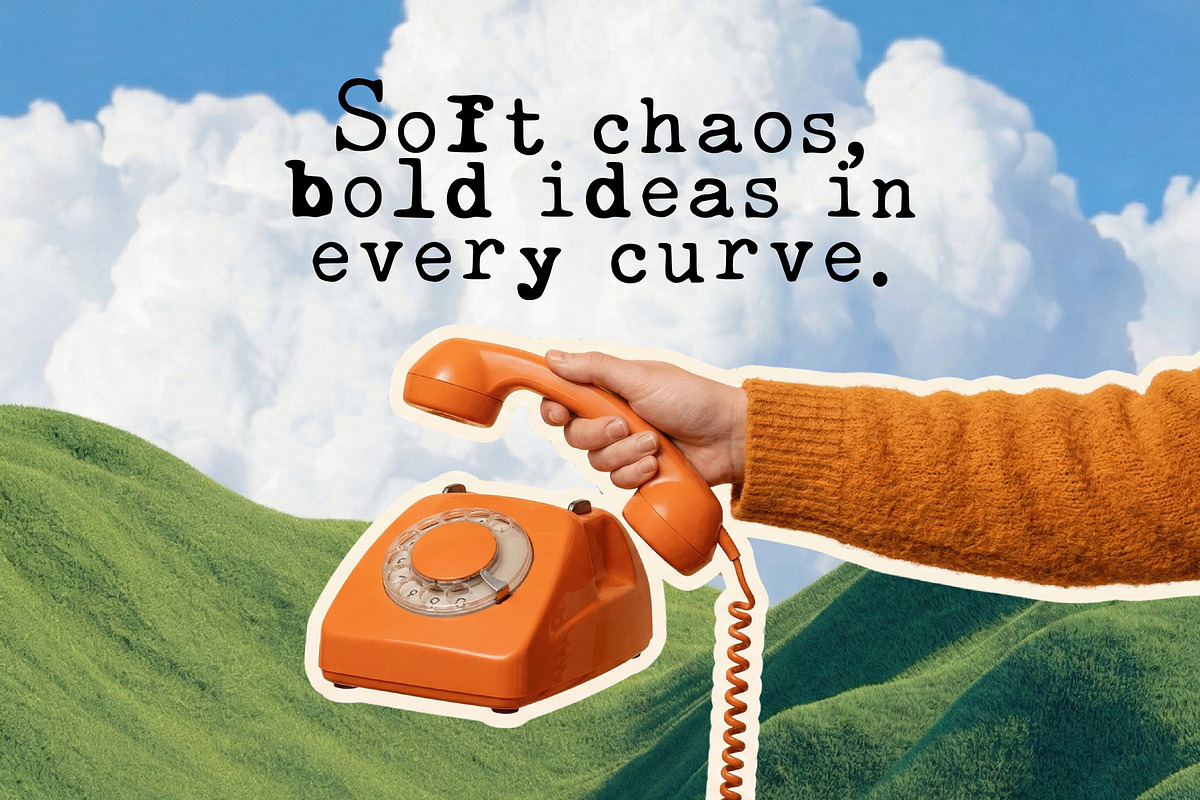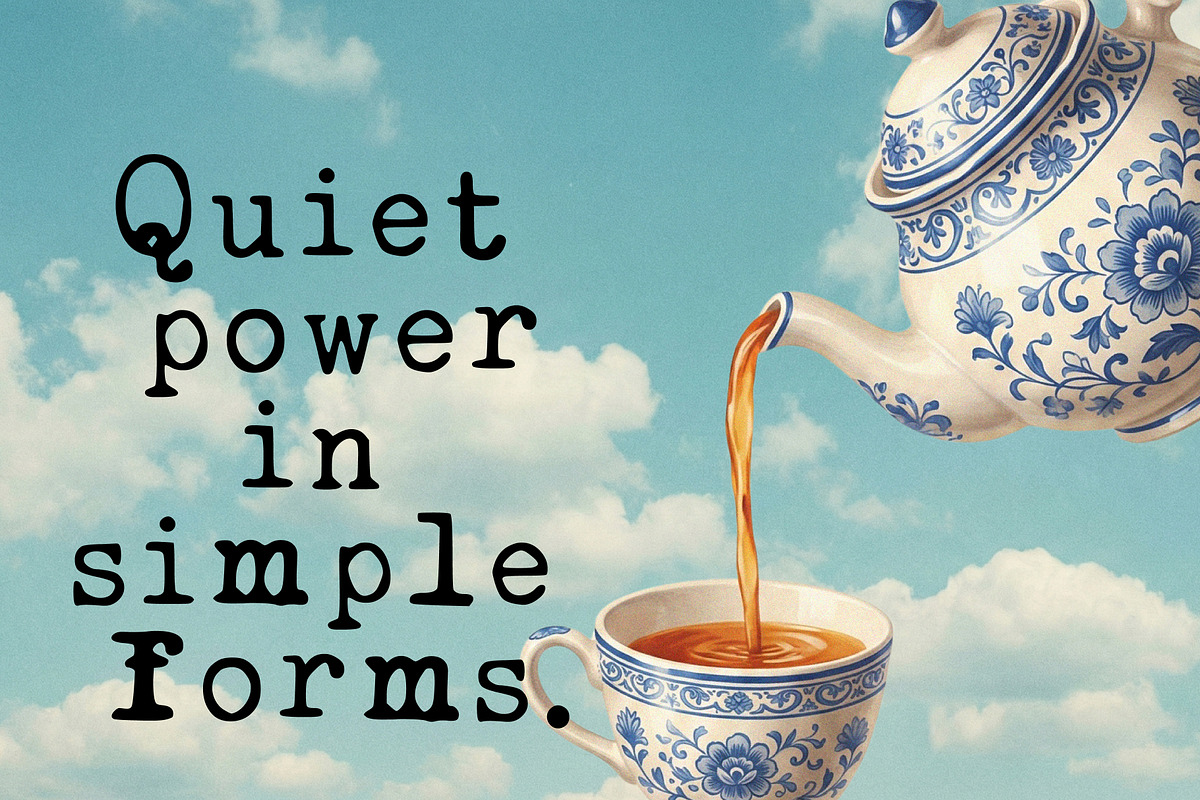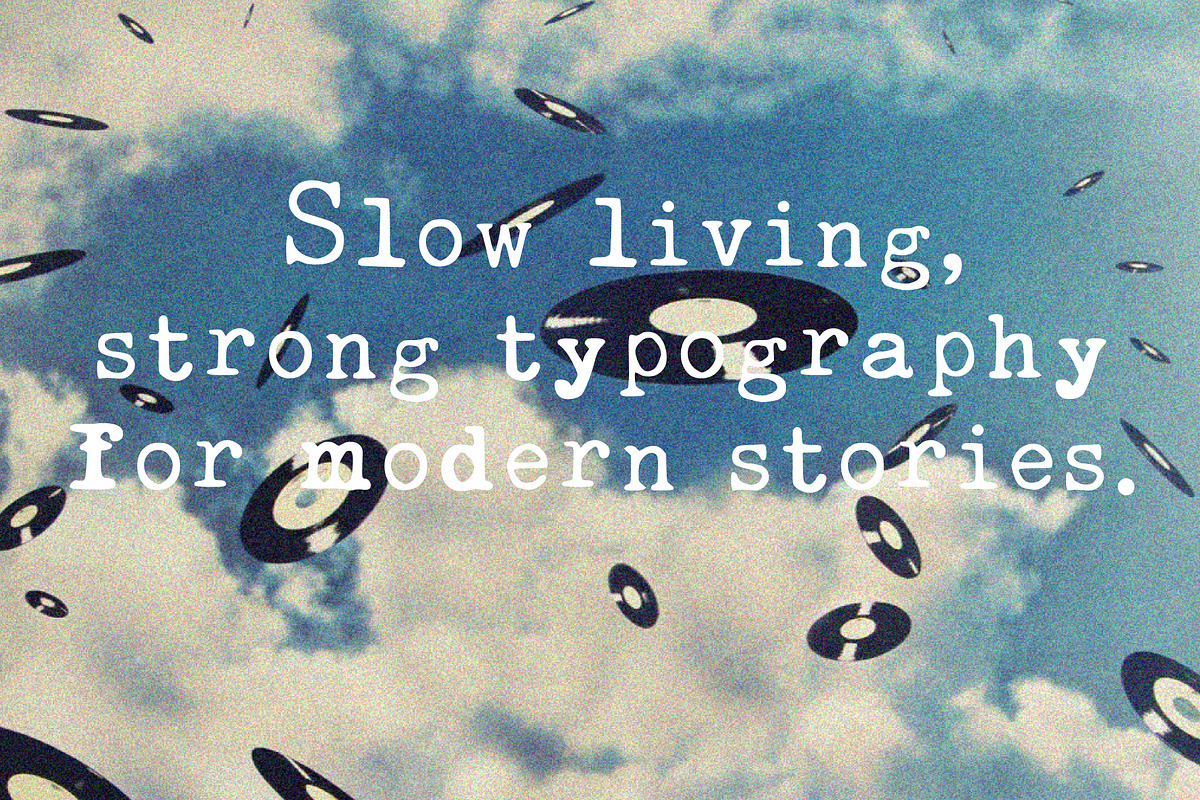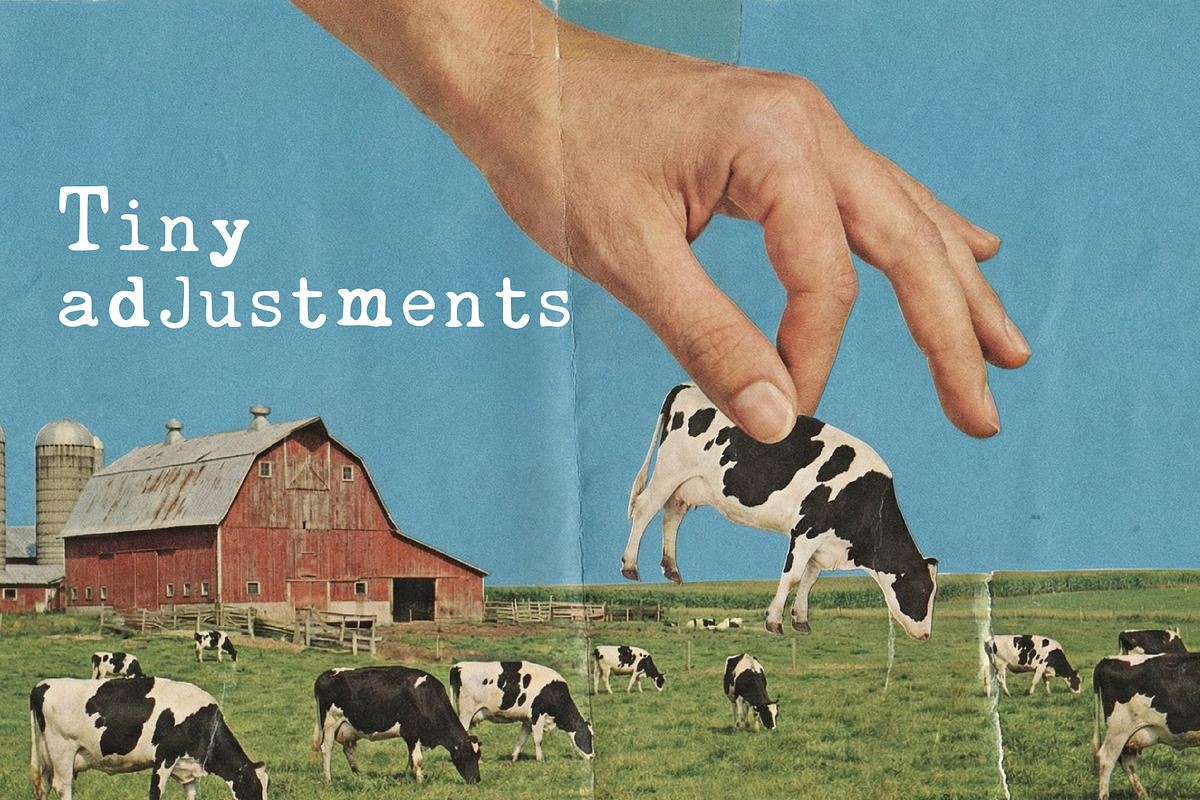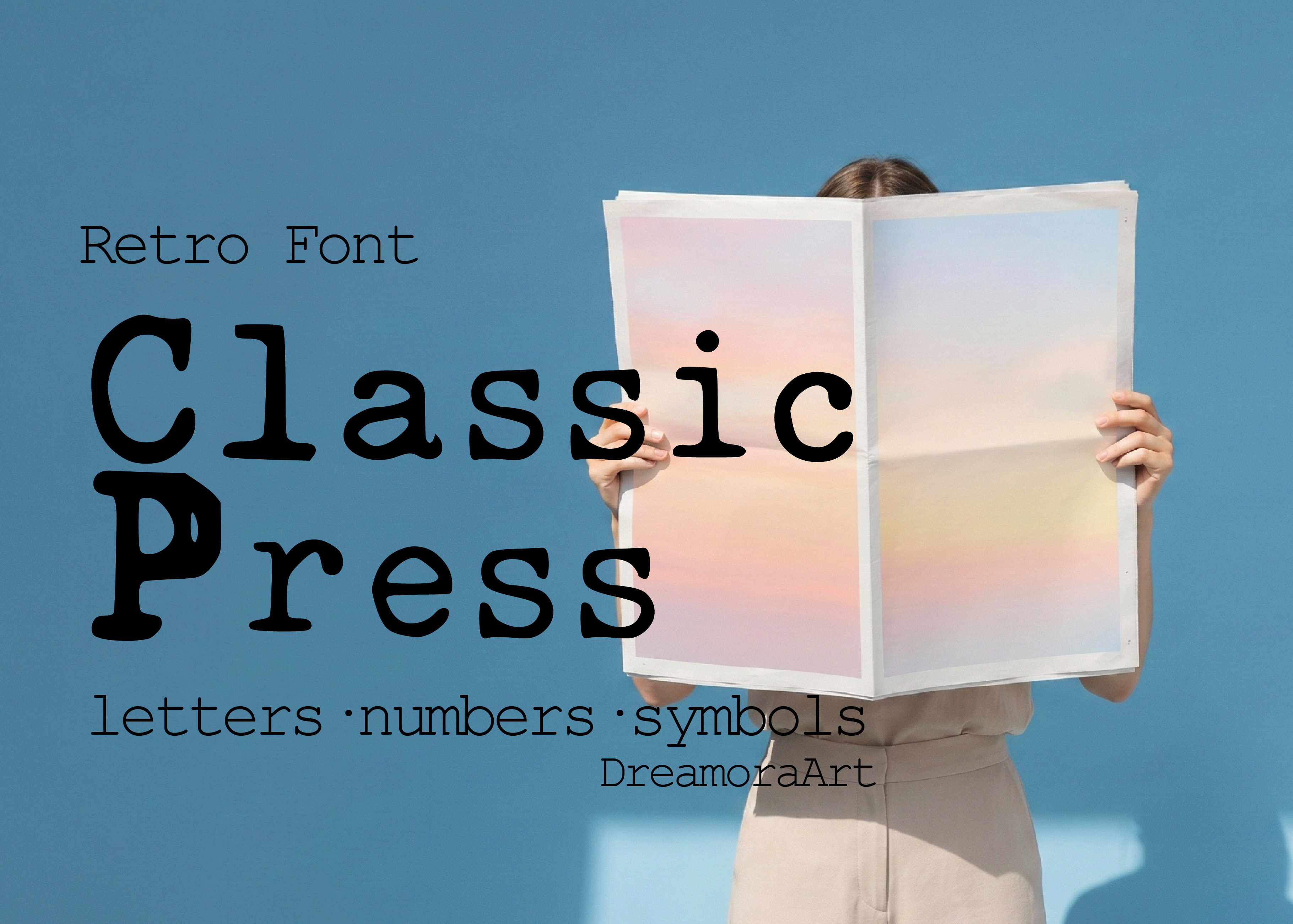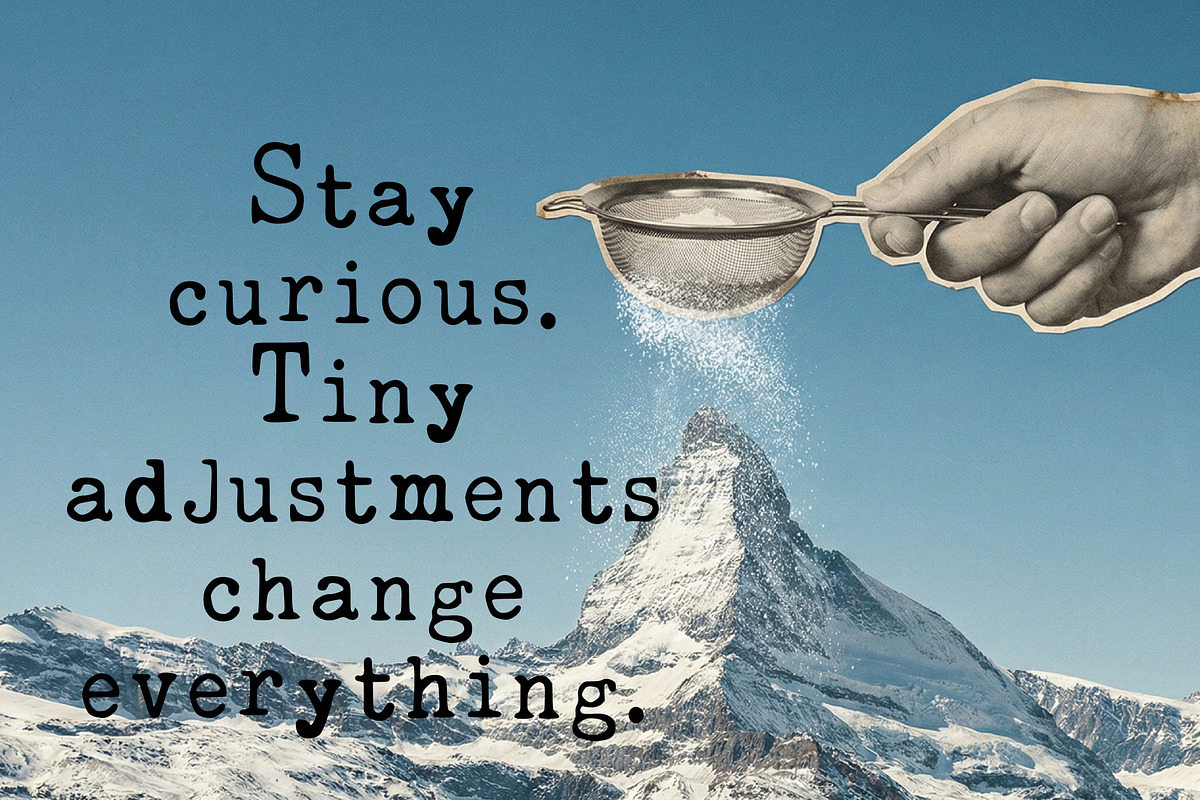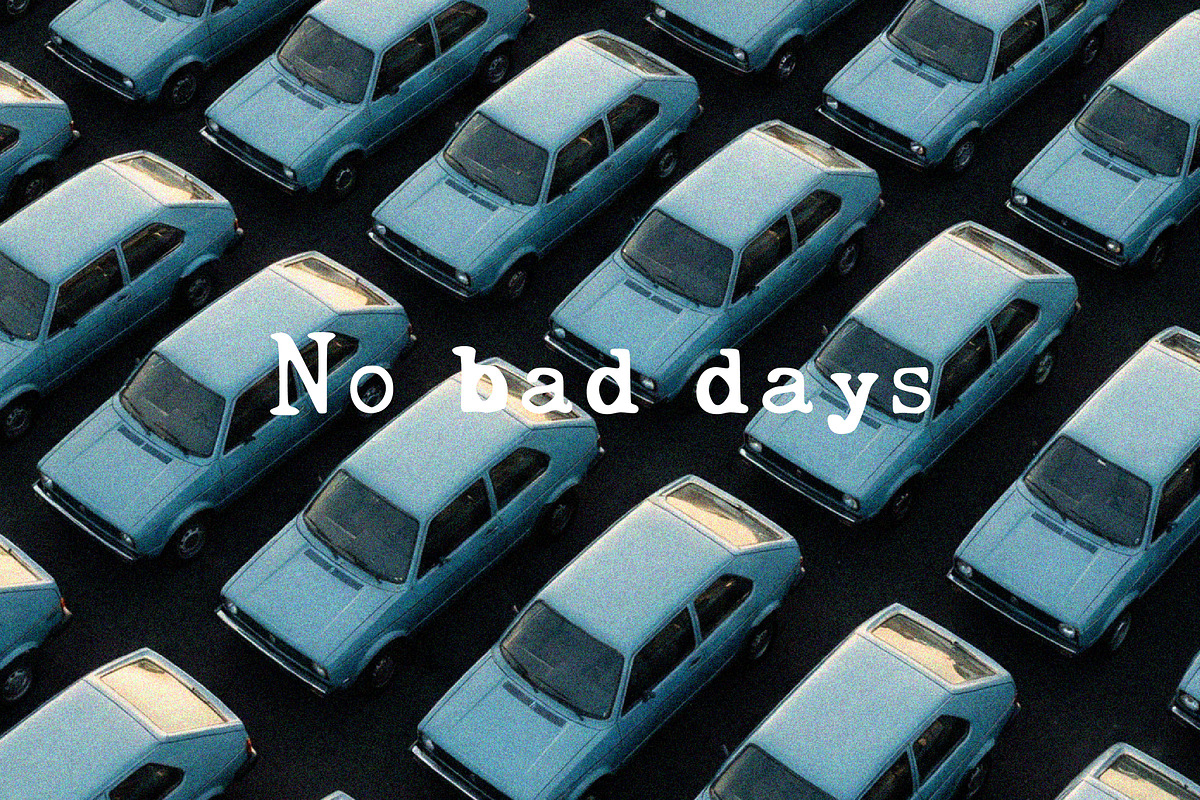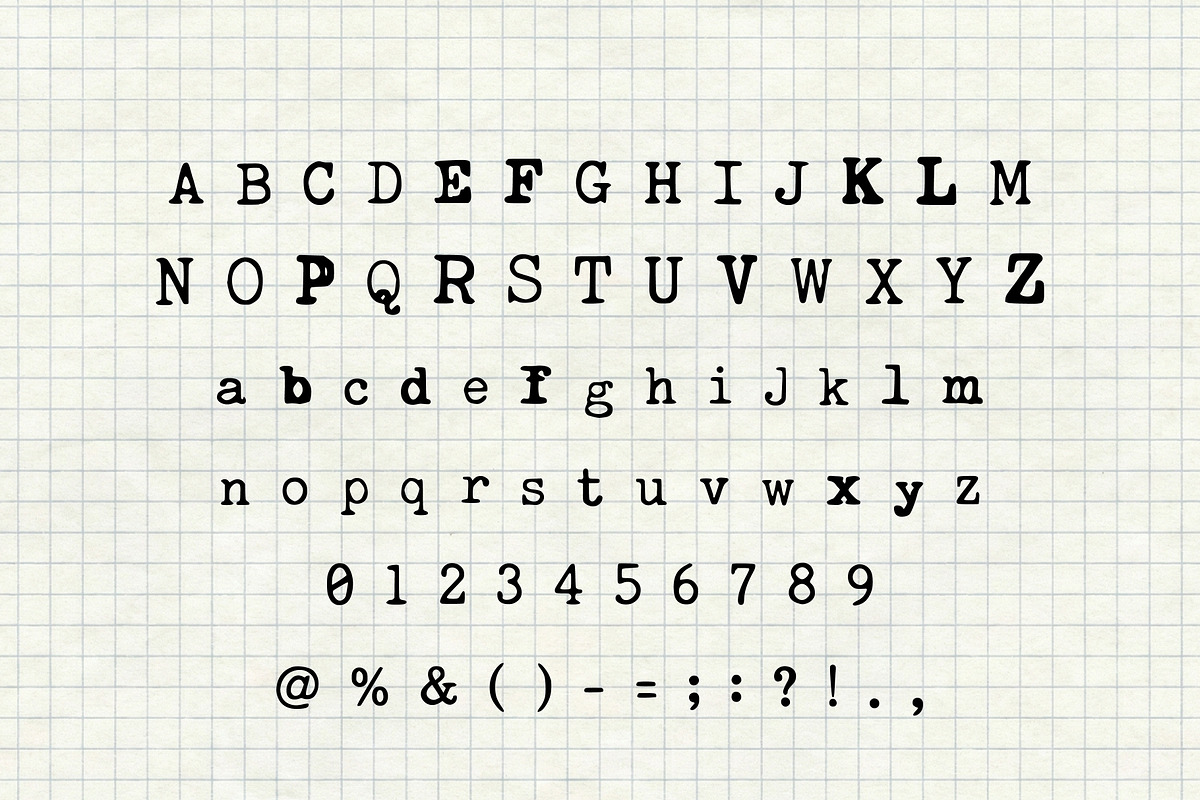
Classic Press - Retro Font
A modern retro display typeface inspired by analog printing, surreal collage posters, and editorial layouts. Perfect for headlines, posters, branding, social media graphics, album covers, and artistic typography projects.
- Typographic style